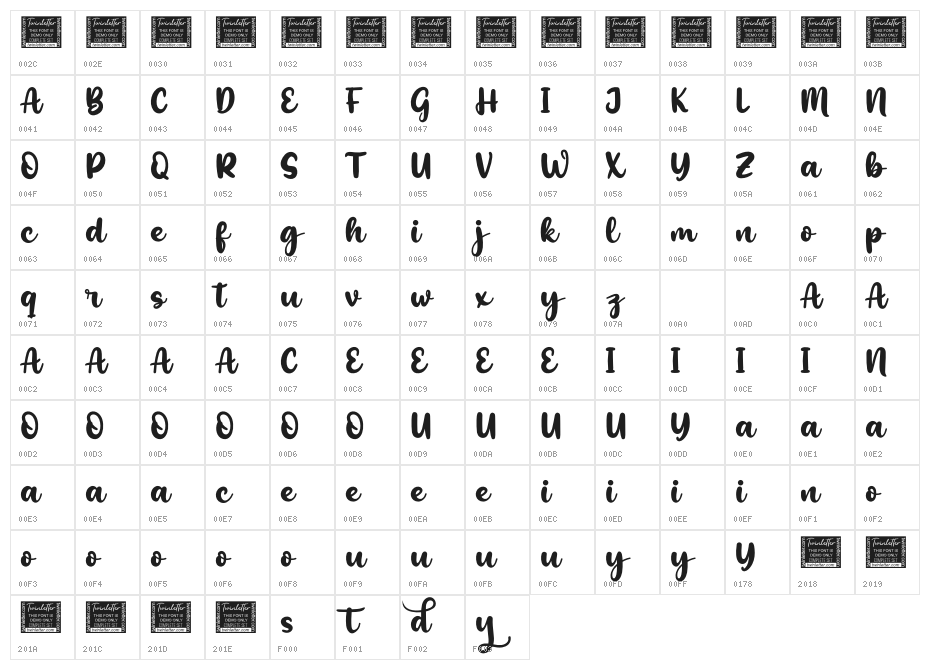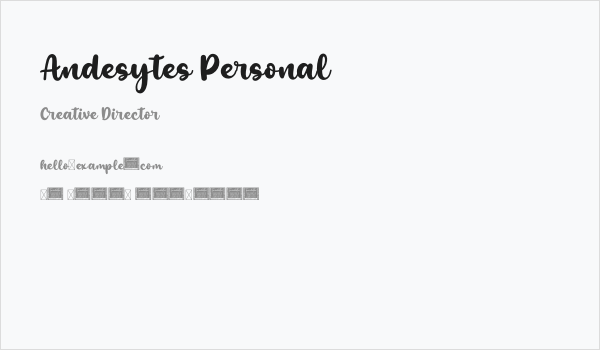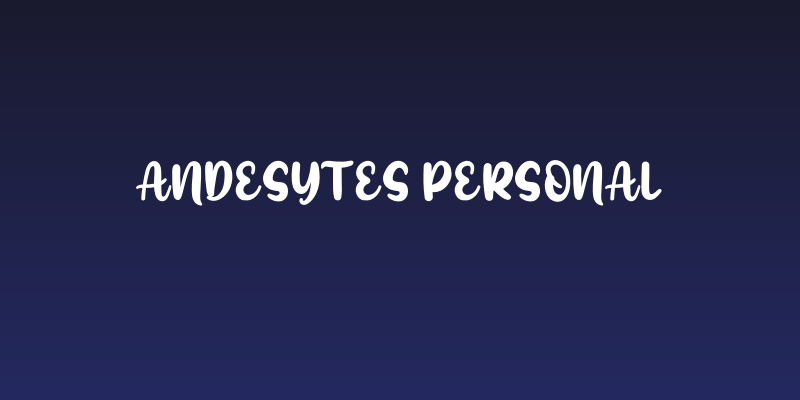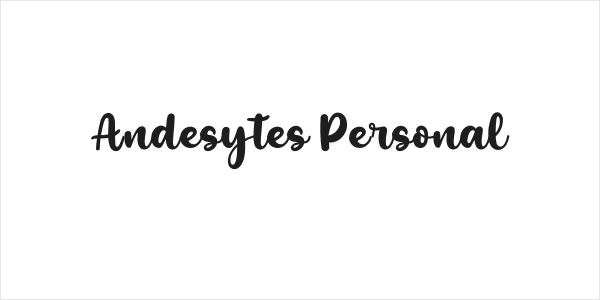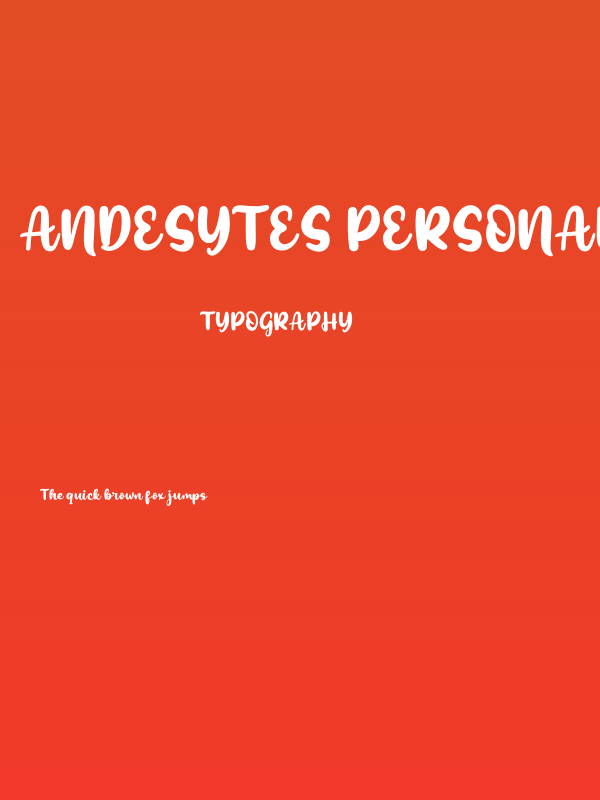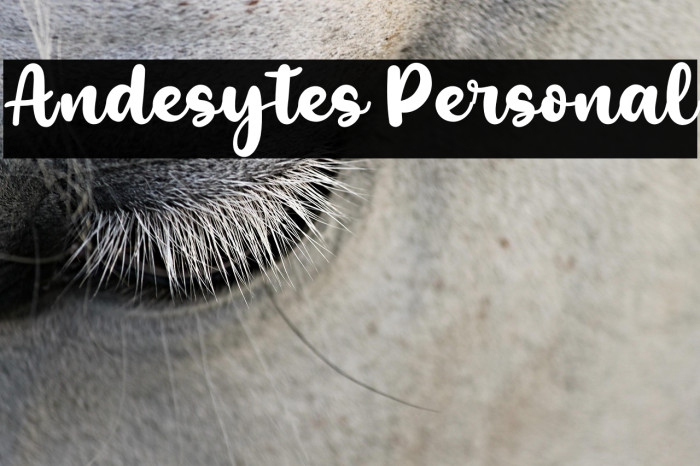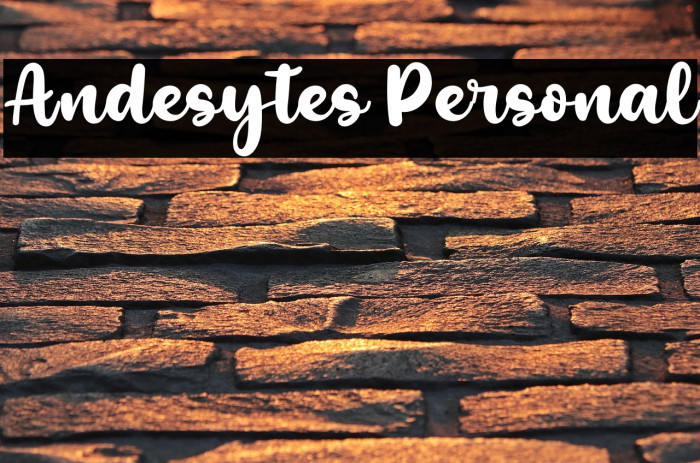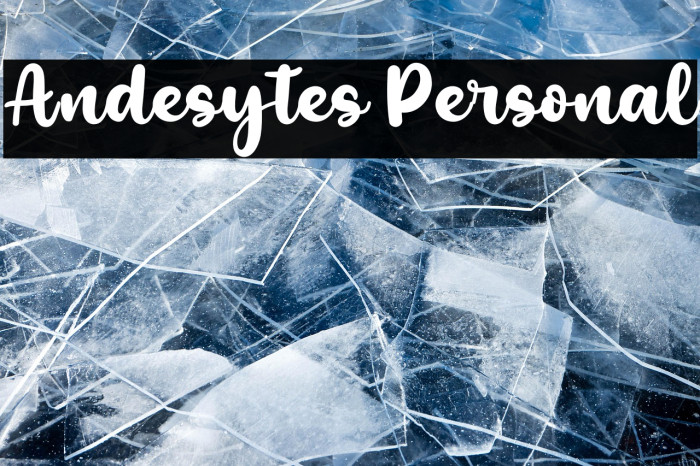
Andesytes Personal Font
Andesytes Personal Description
This font features a playful and bold script style, characterized by its thick, flowing strokes and rounded edges. The uppercase letters are slightly larger and more pronounced, while the lowercase letters maintain a consistent flow, enhancing readability. The font exudes a casual and friendly vibe, making it suitable for creative and informal projects. Its boldness ensures visibility and impact, while the smooth curves add a touch of elegance. The font's design is versatile, allowing it to be used in various contexts where a personal and approachable feel is desired.